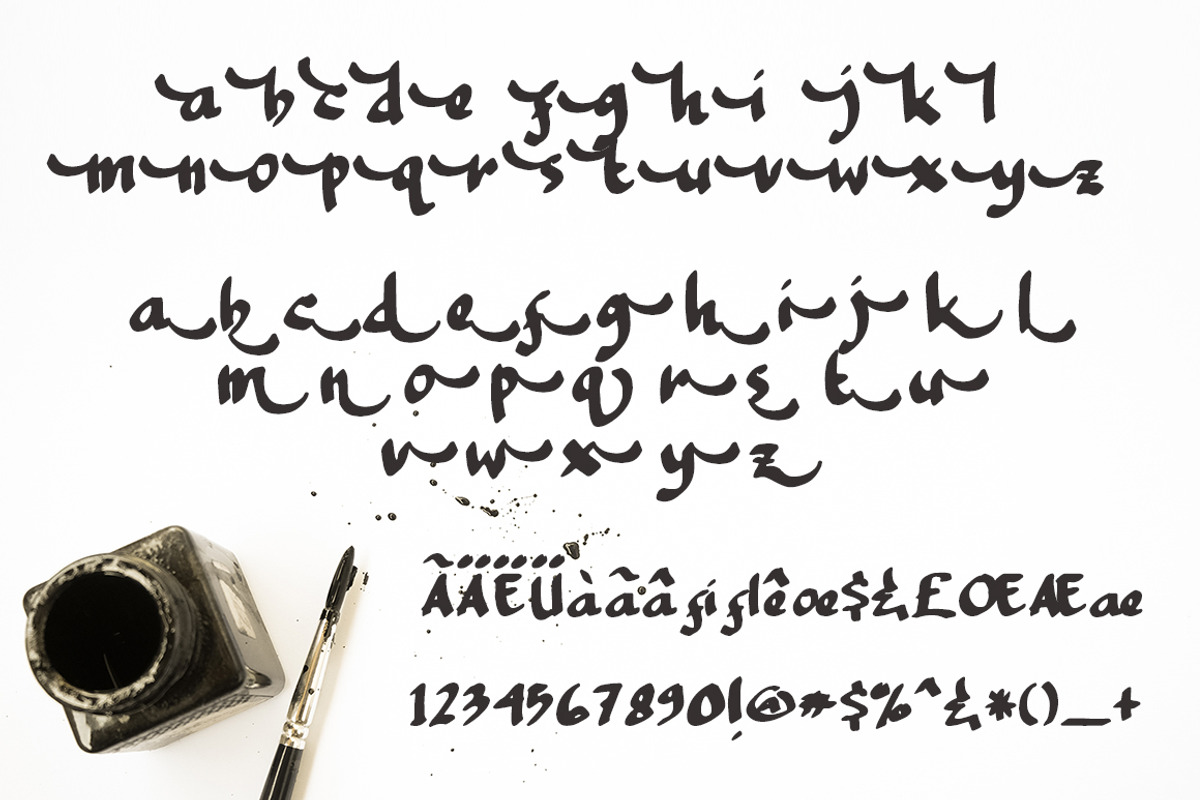
BREED
Handmade font that i called BREED is one of another bold type. Look little bit rough but im focusing the font in authentic brush that i used on.